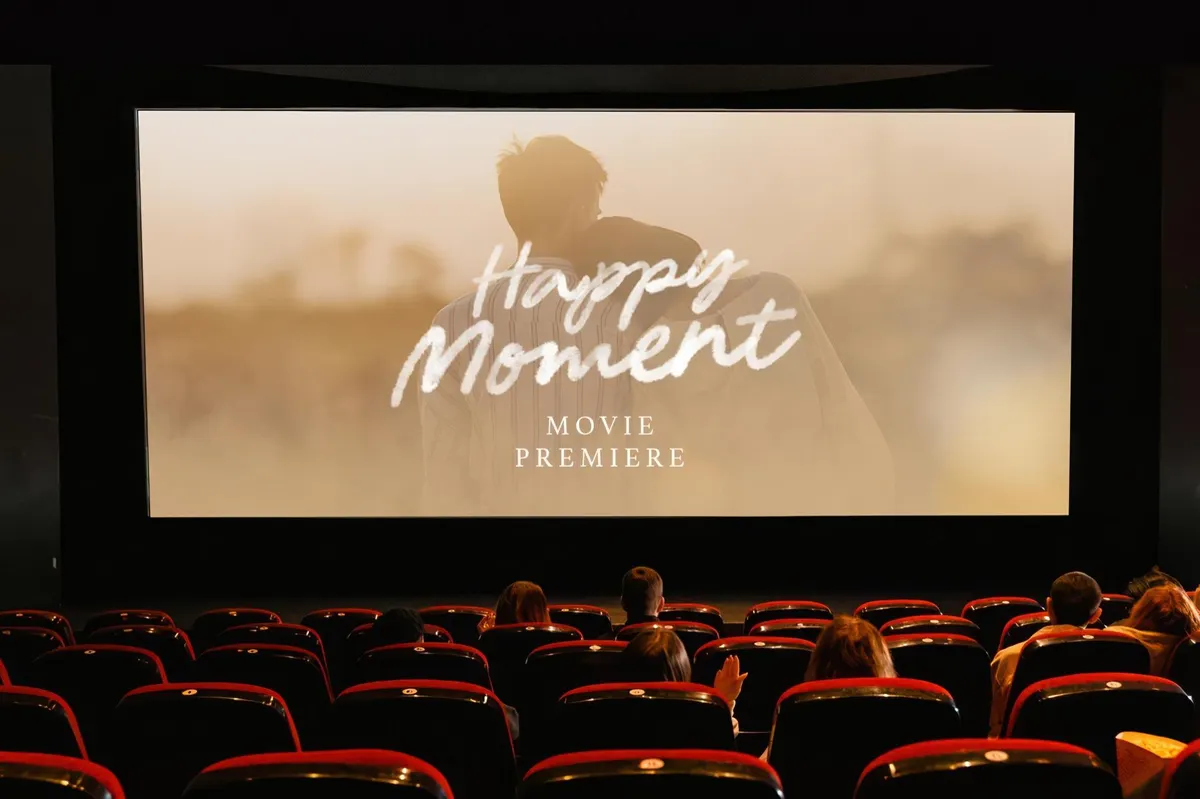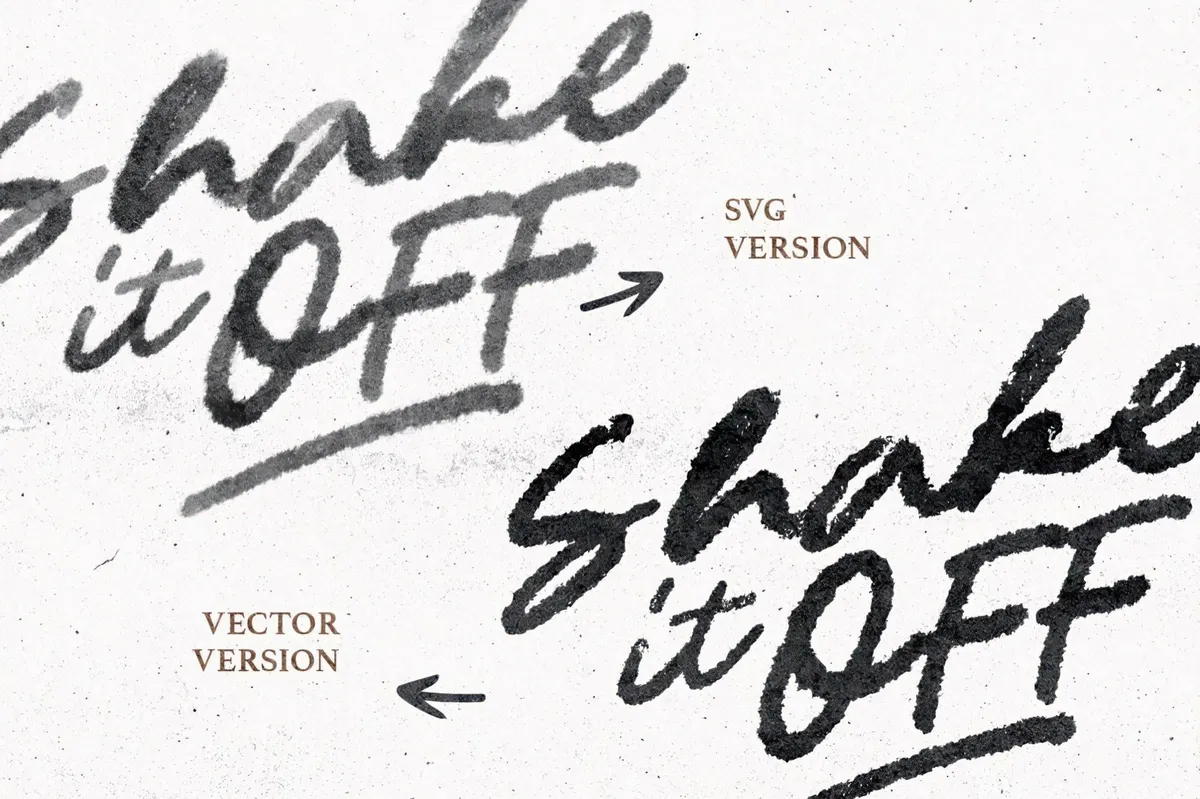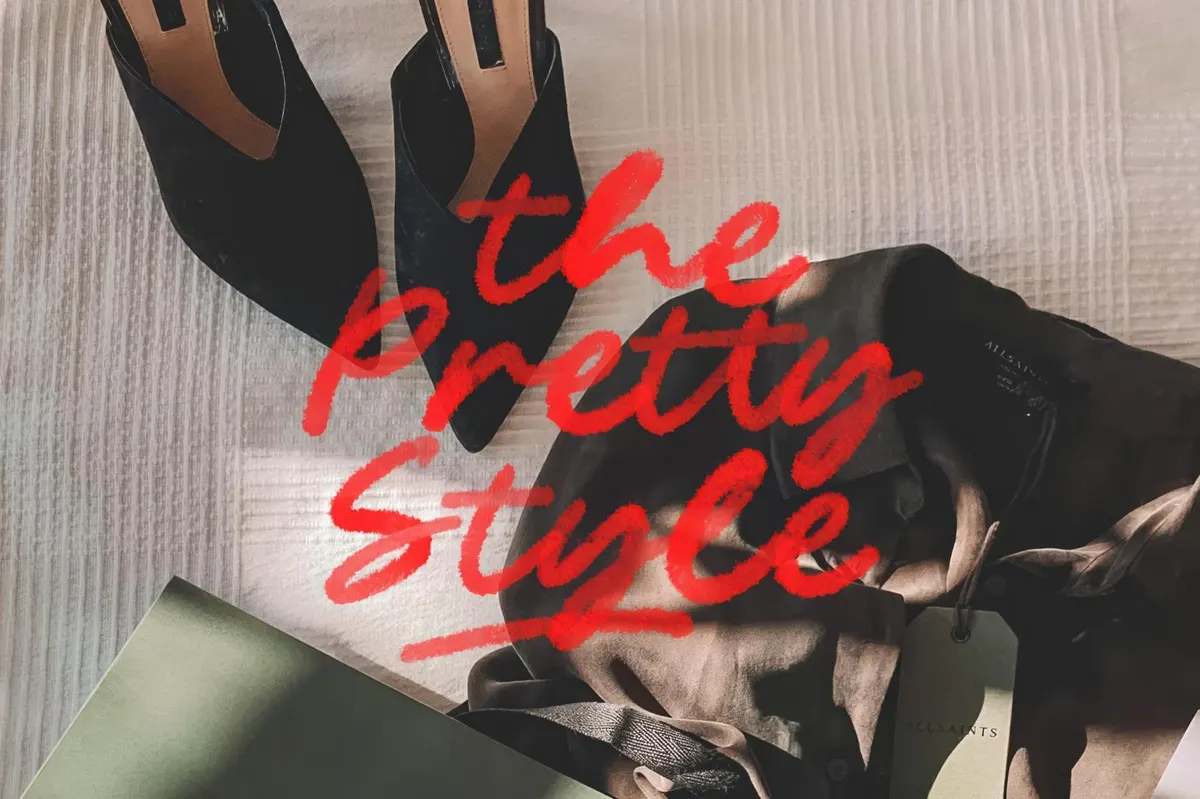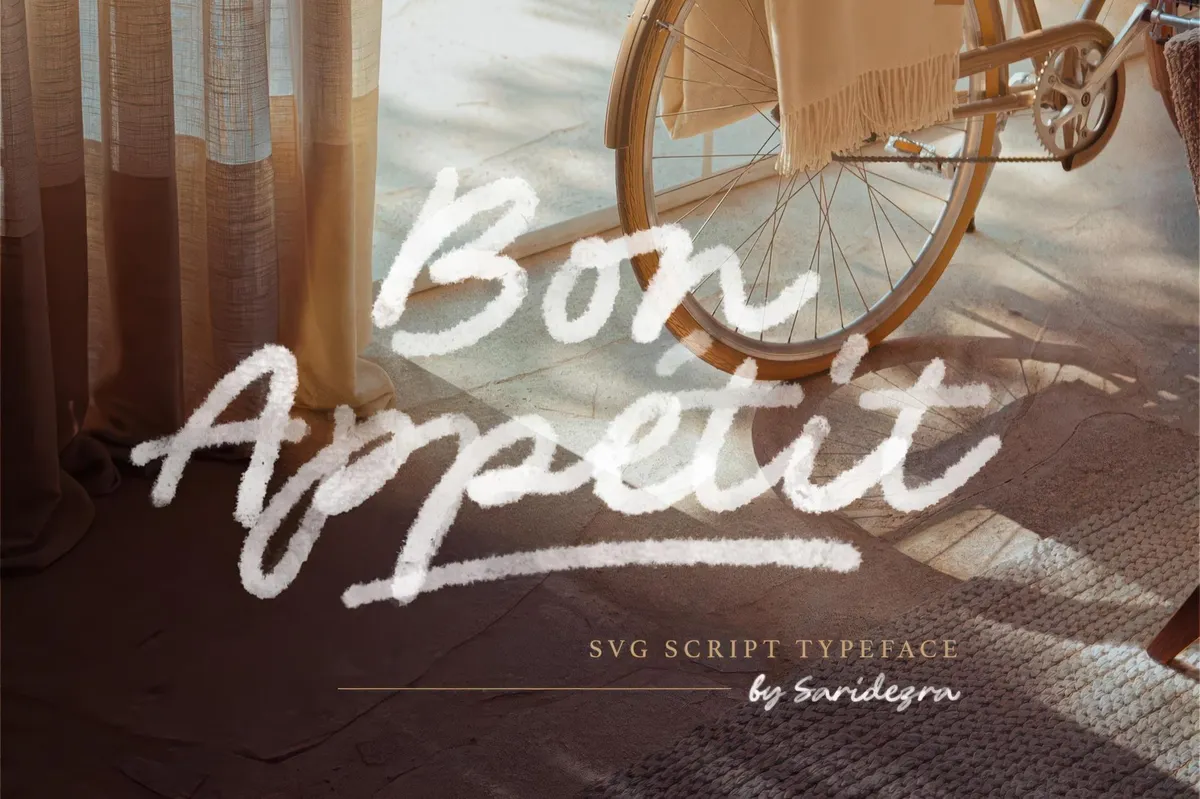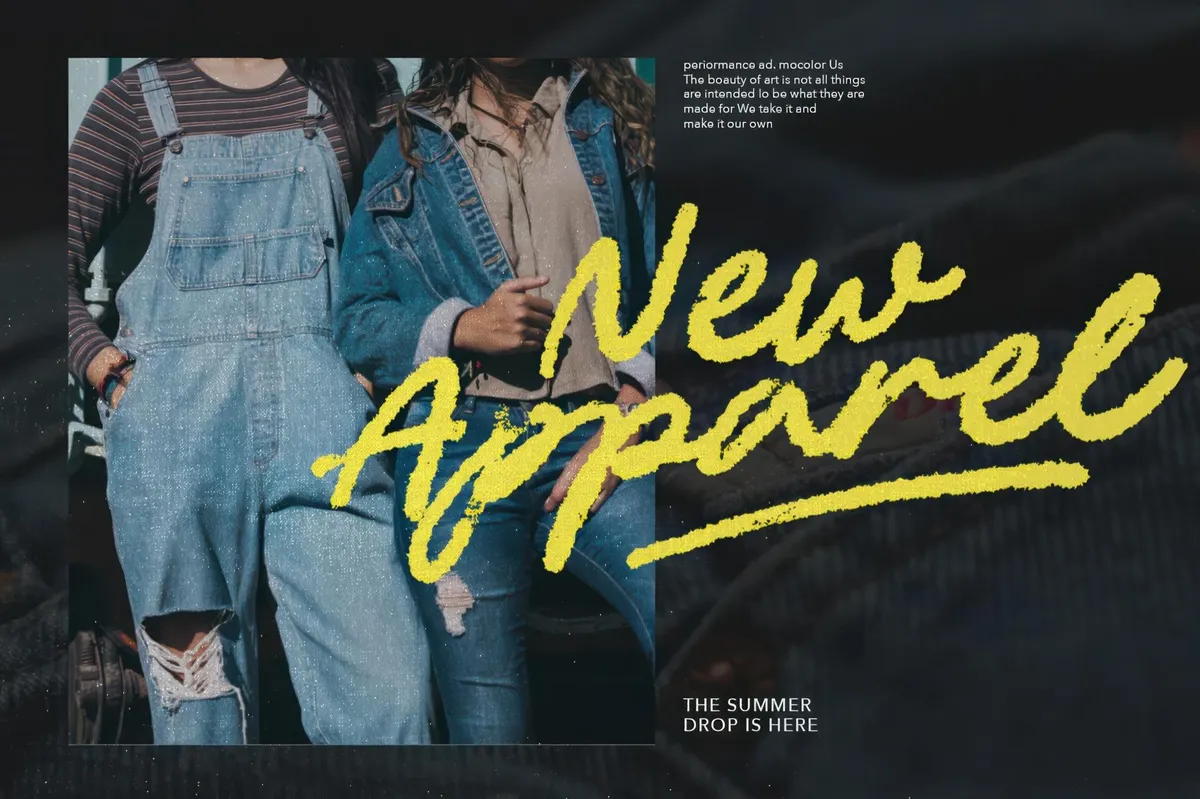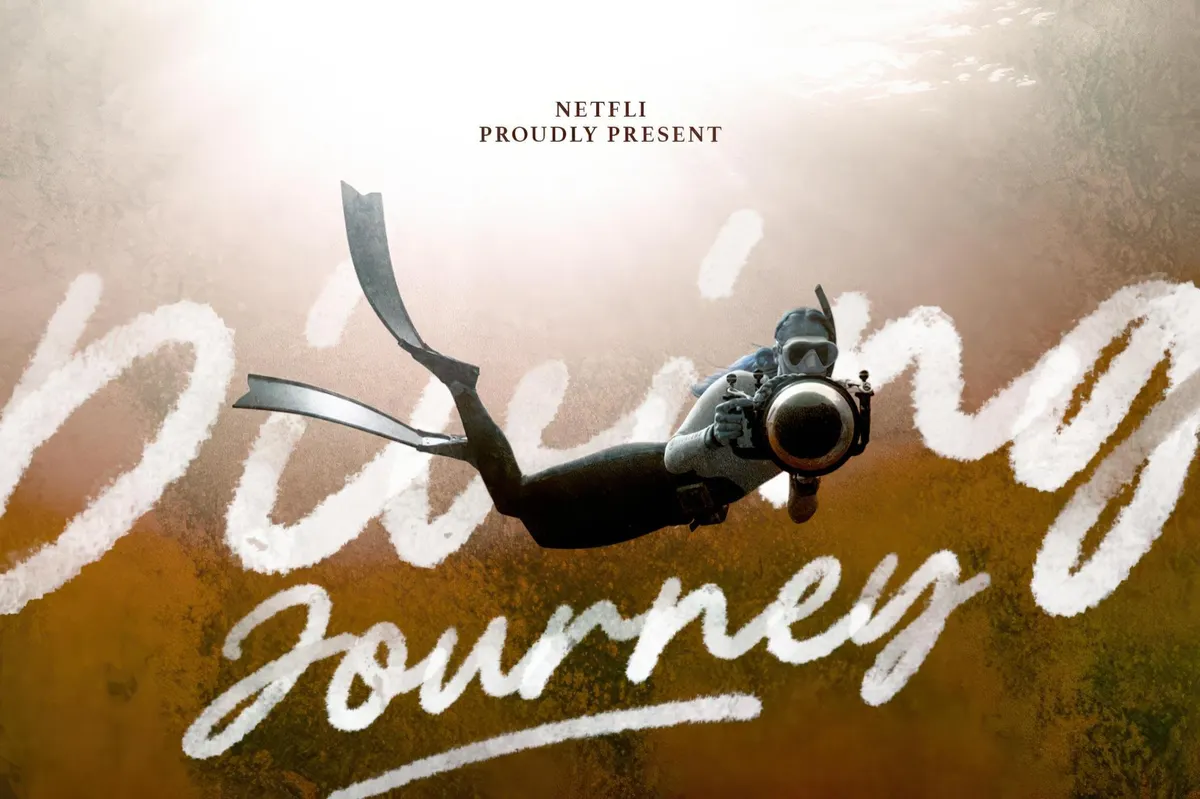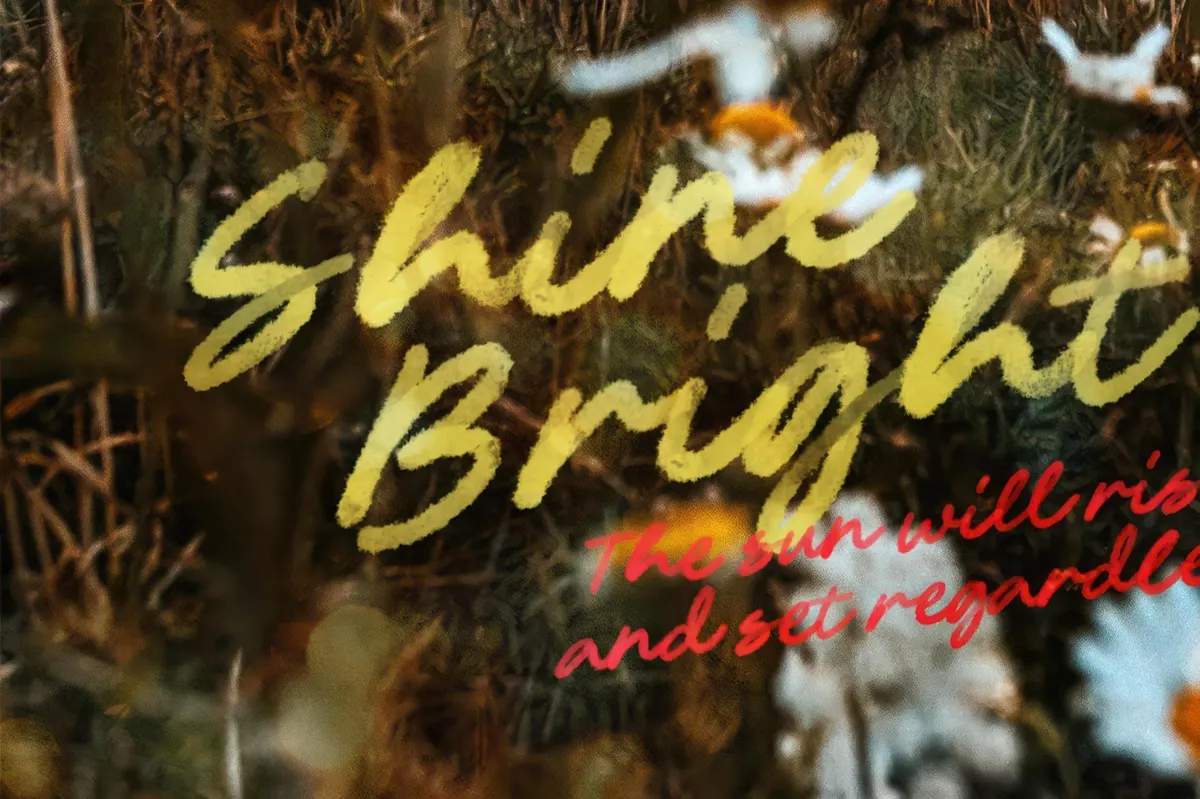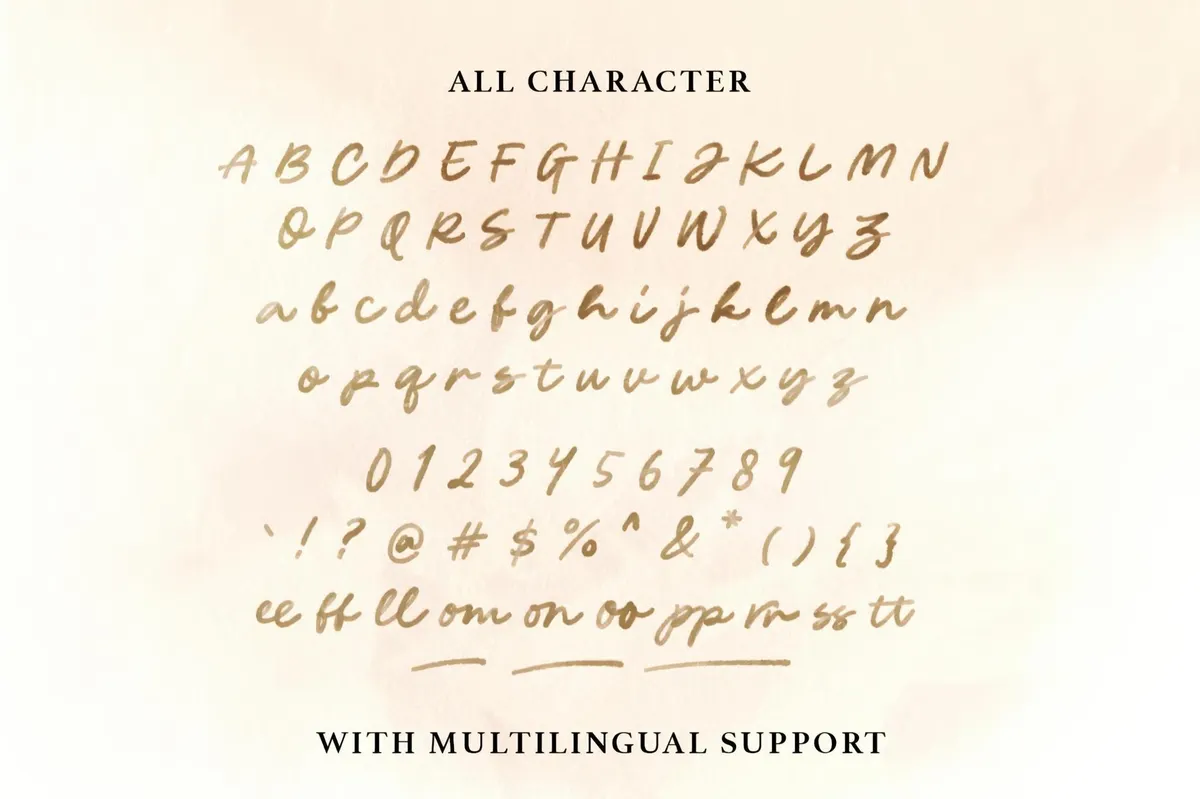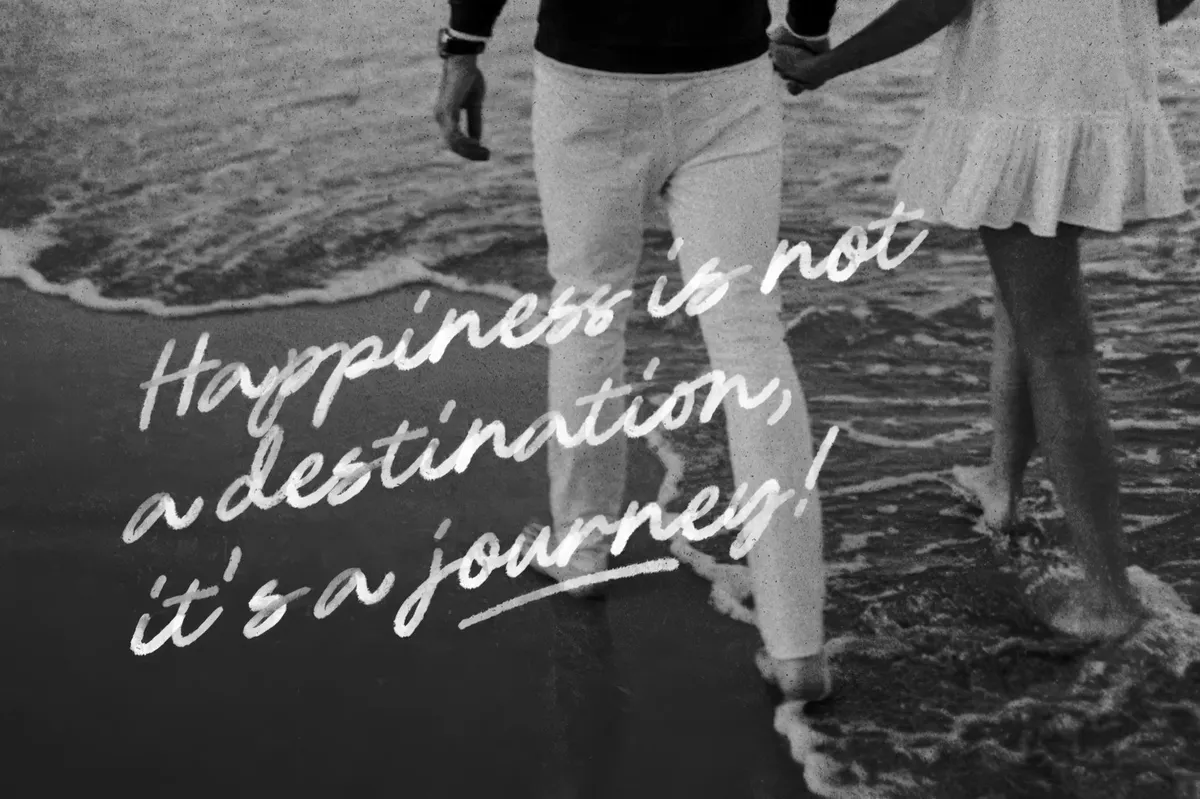
Bon Appetit — SVG Script Font
Prepare to savor the fanciest SVG typography with Bon Appetit, a fancy font mimicking marker/soft brush strokes. Its transparent watercolor texture is a delight for projects where hand-drawn lettering is the number 1 solution, but you are unwilling to spend a typo on actually painting it, struggling with kerning, letter design, and stuff. Bon Appetit is available in SVG (with realistically washed watercolor characters) and OTF (more marker-like look). It's got uppercase and lowercase characters, punctuation, numerals, multilingual support, and ligatures.